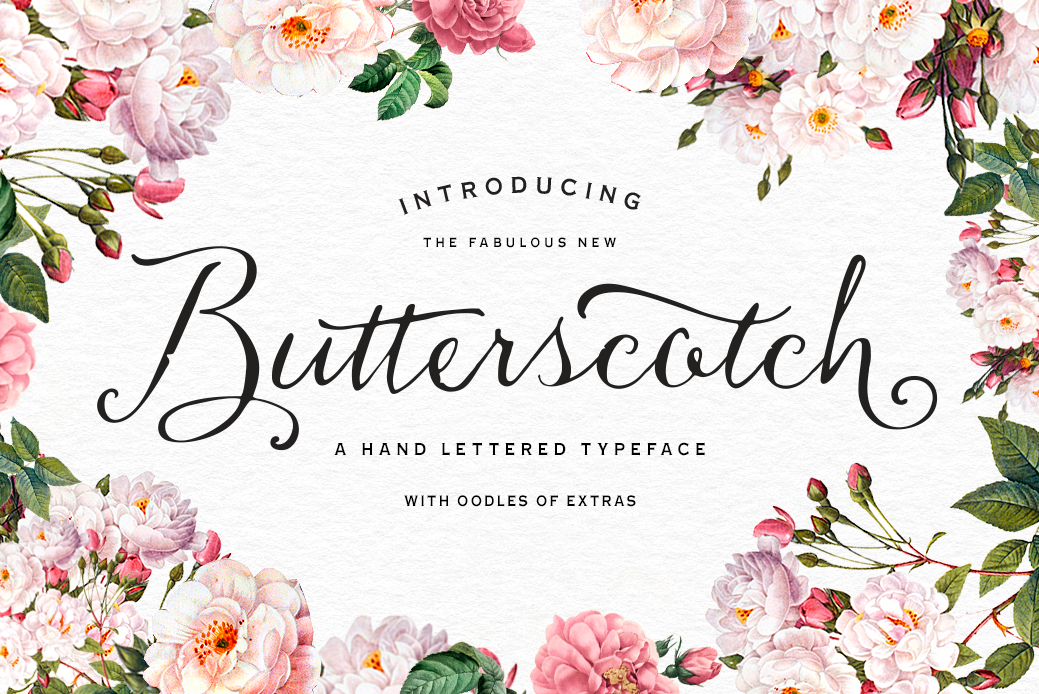
Butterscotch Typeface
Say hello to Butterscotch! This font is so incredibly versatile and adventurous, I had so much fun using it in action, and making the previews for it, I couldn't stop - so I'm left with a growing collection of examples for you to look over anytime you need inspiration on what you can do with it! - You can find more here :
ABOUT BUTTERSCOTCH A beautifully organic, hand-lettered script, carefully crafted and then digitised into an easy to use, elegant yet 'inky', typeface.
Alternative characters for lowercase and uppercase letters to add uniqueness to each word. (OTF,TTF)
60 Decorative Ornaments - a selection of gorgeous swishes, curls and twirls to finish off your typographical masterpieces (TTF)
50 Extra elements - Inky ,hand-drawn catchwords, ampersands, and banners. (TTF)
WHAT YOU CAN DO In a few key strokes you can whip up a typographical masterpiece that will look as if you spent hours hand-lettering it yourself. Its perfect for :
Greeting card/Wedding and Invitation designs
Typographical posters/insignia/apparel designs
Individual and unique branding, logos and CI
Hand lettered Envelope addressing and personalised stamps
And so much more...